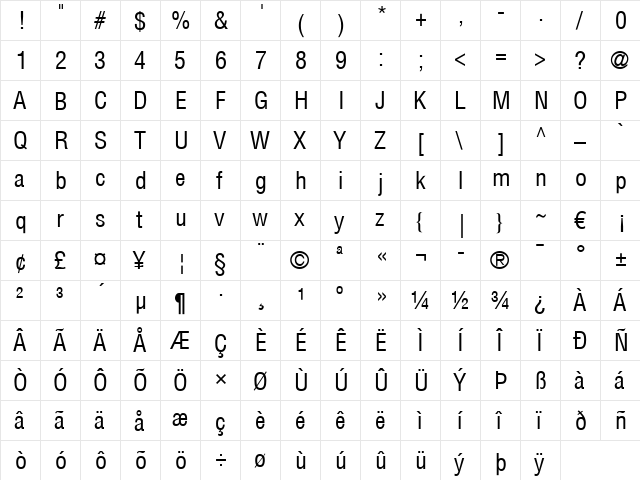
Helvetica LT Condensed Regular Font Preview
Design Context for Helvetica LT Condensed Typeface
Helvetica LT Condensed takes a measured approach to typography — its balanced proportions and neutral character make it a reliable workhorse for both digital and print work. Its slender proportions lend an understated elegance to any composition. Its narrow stance lets it pack a punch even in space-constrained designs.
Pro Tip: Pair Helvetica LT Condensed with a font of contrasting weight or personality to build a more expressive typographic hierarchy.